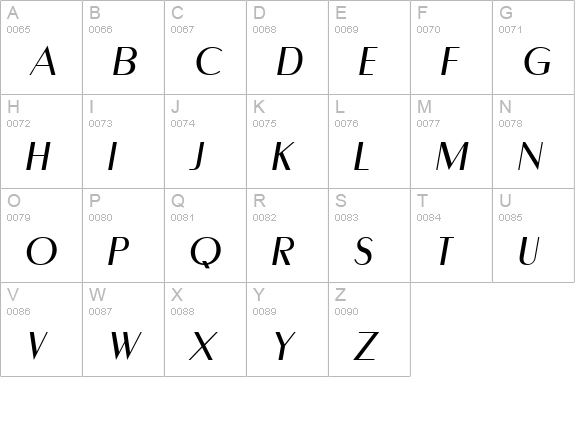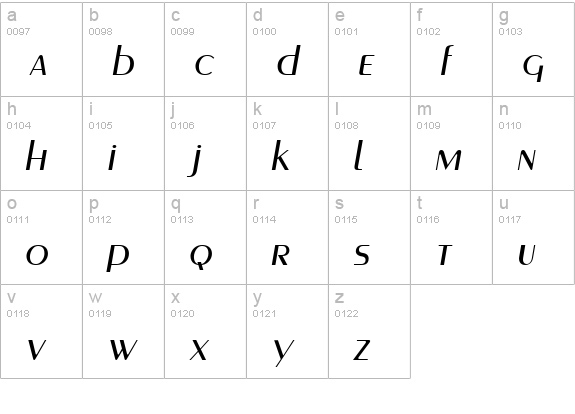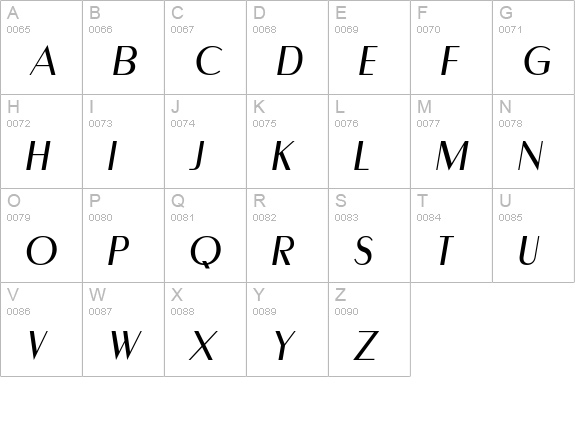
Paquete SSi Italic Font Details
Paquete SSi Italic is a distinctive, italic variant in the Paquete typeface family \xE2\x80\x94 well suited to design and typography projects.
Paquete SSi Italic is a stunning font that exudes elegance and sophistication. Its sleek and stylish design is perfect for adding a touch of sophistication to any project. The italicized letterforms lend a sense of movement and grace, making it an ideal choice for creating eye-catching headlines, logos, and branding materials. What sets Paquete SSi Italic apart is that it is not only visually captivating but also freely available to download at FontsMarket.com. This means that anyone can access this beautiful typeface and use it in their creative endeavors without any cost. Whether you're a professional designer, an aspiring artist, or someone simply looking to enhance their personal projects, Paquete SSi Italic offers a versatile and high-quality option that won't break the bank. With its freely available download, you can easily incorporate this font into your designs and make them stand out from the crowd. Paquete SSi Italic's clean and well-defined letterforms ensure legibility across various mediums, from print to digital. Its timeless appeal makes it suitable for a wide range of applications, including advertising materials, invitations, packaging, and website design. By adding this font to your collection, you'll have a go-to typeface that never goes out of style. So why wait? Download Paquete SSi Italic today from FontsMarket.com and unlock the potential of this beautiful font. With its elegant aesthetic and the convenience of a free download, Paquete SSi Italic is a must-have for anyone looking to elevate their designs with a touch of sophistication and style.